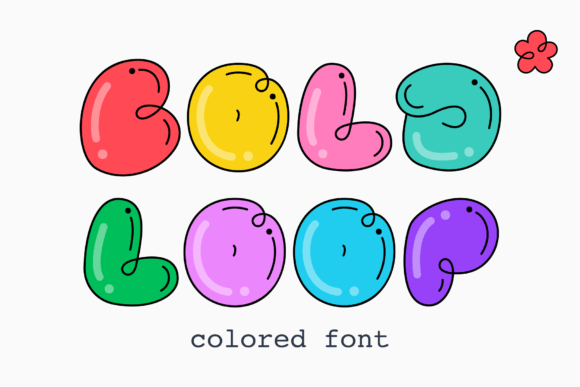
The Bold Loop Font: A Fun and Quirky Display Font for Creative Projects
I’ll never forget the time I was working on a project for a children’s birthday party, and I just couldn’t find the right font to match the playful vibe of the design. The client wanted something fun, colorful, and eye-catching, but everything I tried seemed either too boring or too over-the-top. That’s when I stumbled upon the Bold Loop font, and it instantly brought the project to life! In this article, I’ll share my experience with this amazing font, its features, and how to make the most of it in your creative projects.
An Honest Review of Bold Loop Font
What I Love About Bold Loop Font ✨
- Its unique, childish style made of overlapping lines that adds a playful touch to any design ✅
- The font’s versatility – it can be used for a wide range of applications, from colorful advertising to mosaic packaging and multimedia identity 📦
- Its ability to add a fun and quirky element to children’s design, making it perfect for projects like birthday parties, kids’ events, or educational materials 🎉
- The way it stands out in a crowded design space, making it ideal for bold and eye-catching designs 🔥
While Bold Loop font is an amazing addition to any design project, there are a few things to keep in mind:
- It may not be the best choice for body text or long paragraphs, as its playful style can be overwhelming for large blocks of text ⚠️
- Some of the overlapping lines can be tricky to read if the font size is too small, so it’s best to use it in larger sizes 📊
The Backstory of Bold Loop Font
Bold Loop font was designed by a creative team that wanted to create a font that would bring a smile to people’s faces. Inspired by the playful, childish art of the 80s and 90s, they set out to create a font that would be fun, quirky, and perfect for creative projects. After months of design and testing, Bold Loop font was born – a unique and eye-catching font that’s sure to add a touch of personality to any design 🎨
Q: What is the best way to use Bold Loop font?
A: Bold Loop font is perfect for creative projects that need a playful touch, such as children’s design, colorful advertising, and mosaic packaging. Use it in larger sizes to make the most of its unique features 📦
Q: Is Bold Loop font suitable for body text?
A: While Bold Loop font is an amazing display font, it may not be the best choice for body text or long paragraphs. Its playful style can be overwhelming for large blocks of text 📖